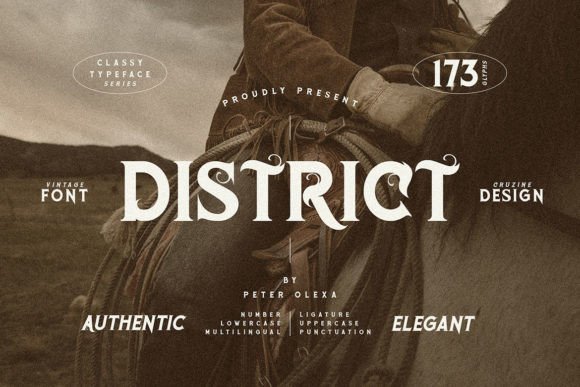
Journey back to an era of elegance and grace with District Font, a serif font that emanates vintage charm and timeless sophistication. Meticulously crafted by JumboDesign, this font is a visual masterpiece that blends retro aesthetics with modern sensibilities. District Font is not just a collection of letters; it's a gateway to a world of creativity and expression.
Unleash your inner artist and let District Font guide you through captivating branding projects, alluring editorial layouts, and eye-catching signage. Its distinctive features and intricate details will transform your designs into masterpieces that resonate with audiences. The classic appeal of District Font adds a touch of nostalgia, while its contemporary elegance ensures it remains relevant in the digital age.
Step into a world where typography meets artistry. District Font is more than just a font; it's an experience. Its vintage flair evokes a sense of warmth and familiarity, while its versatility allows it to adapt to a wide range of design styles. Whether you're creating logos, posters, or invitations, District Font will elevate your designs to new heights of sophistication.
With District Font, you'll discover a font that speaks volumes. Its timeless beauty and unwavering charm will captivate audiences and leave a lasting impression. Embrace the allure of District Font and unlock a world of creative possibilities. Let your designs exude elegance, evoke emotion, and tell unforgettable stories.